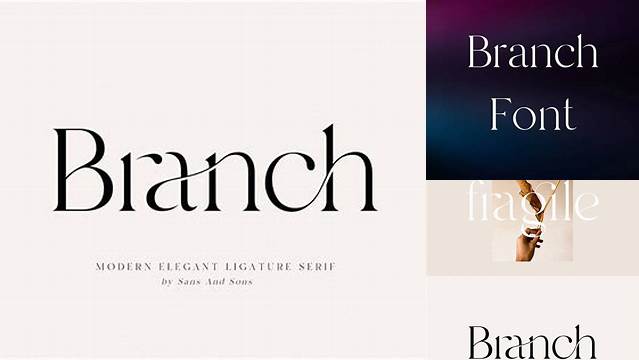
Hey everyone! Are you on the hunt for a super cool, modern font that screams elegance and style? Well, look no further because we're diving deep into the world of the Branch Modern Ligature Font! And the best part? We're talking about a free download! Get ready to jazz up your designs with this fantastic typeface. This guide will cover everything you need to know: from what makes this font special to where you can grab it without spending a dime. Let's get started, shall we?
H2: Unveiling the Elegance of Branch Modern Ligature Font
So, what exactly is the Branch Modern Ligature Font? Guys, it's more than just letters on a screen; it’s a statement. This font is all about that modern, sophisticated vibe. The beauty lies in its clean lines, perfect curves, and that special touch of ligatures. Ligatures, for those who don't know, are those fancy connections between letters that make words flow beautifully. Think of it like the secret sauce that makes your text pop. It's the kind of font you'd see on high-end branding, classy invitations, or stylish websites. It’s super versatile, which means you can use it for pretty much anything you can dream up. From headings that grab attention to body text that’s easy on the eyes, Branch Modern Ligature Font has got you covered. The design is meticulously crafted, ensuring every character is perfectly balanced and aesthetically pleasing. It's not just about looking good; it’s about making your message stand out. This font can transform a simple design into a work of art, giving it that premium feel that everyone loves. This font is also great for creating a strong brand identity. The unique style of the font can set you apart from the competition and make a lasting impression on your audience. It helps you create a cohesive visual language that strengthens your brand’s personality. For those in the design world, this font is a treasure trove of possibilities. This font is not just a font; it's an experience. It’s about creating something that feels special and looks amazing. The elegance of this font will help your designs get the attention they deserve.
H2: Designing with Branch Modern Ligature Font: Tips and Tricks
Now that you have your Branch Modern Ligature Font free download and it’s installed, let's dive into some design tips! This font is incredibly versatile, so the possibilities are endless. First, think about how you want to use the font. It's perfect for headlines, logos, and anywhere you want to make a statement. For a modern look, pair it with a clean, sans-serif font for body text. The contrast will make your design pop. Also, play with the font sizes. Bigger sizes work well for headings, while smaller sizes are great for body text or captions. When you start designing, focus on the layout. Make sure the text is legible and easy to read. Experiment with different colors and backgrounds to see what works best. This font also shines with branding. Use it to create a cohesive visual identity for your brand. Consider using the font for your logo, website, and marketing materials. Don’t be afraid to experiment. Try different combinations of text and images until you find something you love. Remember, the goal is to make a design that looks great and communicates your message effectively. Have fun with it, and let your creativity flow!
H2: Conclusion: Embrace the Branch Modern Ligature Font!
So there you have it, guys! We’ve covered everything from the Branch Modern Ligature Font free download to how to use it like a pro. This font is a fantastic addition to any designer's toolkit. It’s modern, elegant, and totally free! So, get out there, download it, and start creating amazing designs. Remember to check the license details and always respect the terms. Experiment, be creative, and most importantly, have fun! This font will elevate your projects. The world of design is always changing, so have fun and stay inspired. This font is an amazing way to express your creativity. It's a great way to bring your creative visions to life. Happy designing!